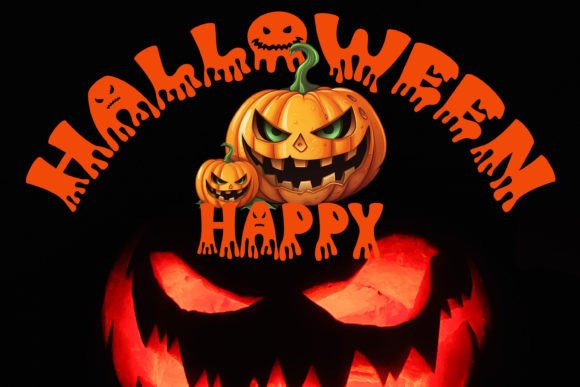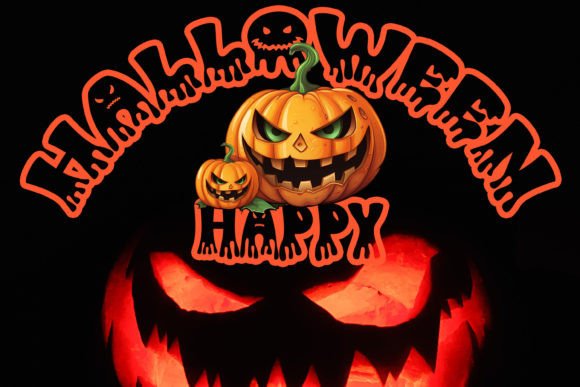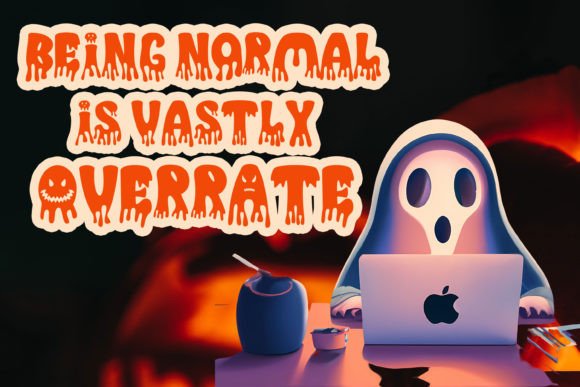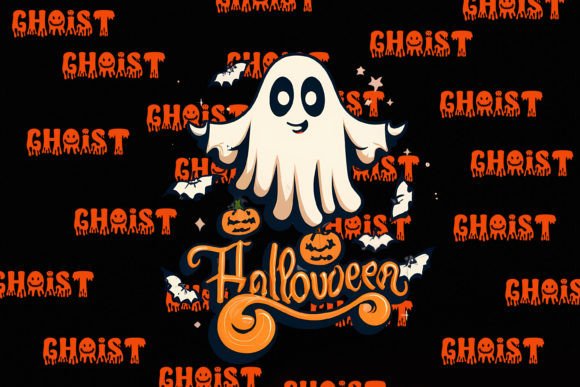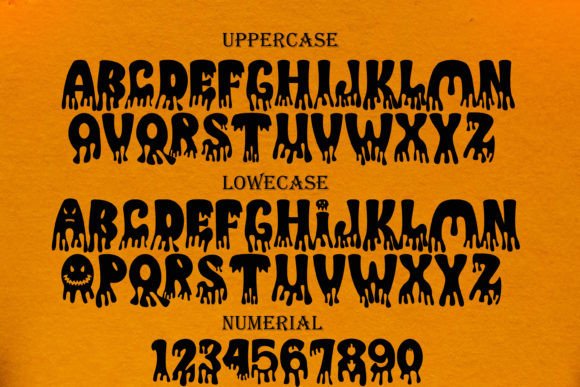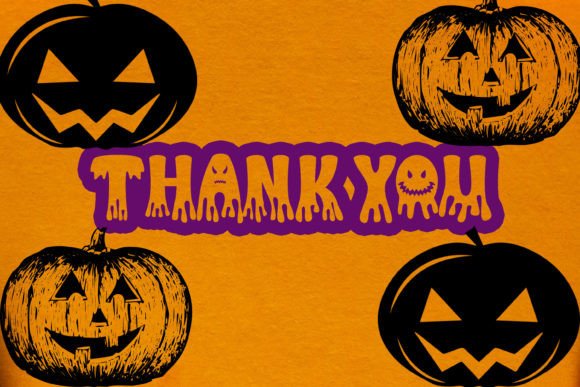
The Perfect Font for a Spooky Twist
As a designer, have you ever been brainstorming ideas for a Halloween-themed project and struggled to find the perfect font to set the mood? You’re not alone. The right font can make all the difference in creating an immersive and engaging experience for your audience.
That’s where the Ghoist Font comes in – a fun and unique display font designed specifically for spooky and Halloween-themed activities. With its eerie and playful vibe, Ghoist Font is the perfect addition to any creative project looking to add a touch of fear and excitement. Whether you’re designing a haunted house flyer, a spooky social media post, or a creepy graphic novel, Ghoist Font is sure to make your design stand out from the crowd.
As a designer, you know how valuable a unique and versatile font can be. Ghoist Font is a valuable addition to any font collection, offering endless possibilities for creative expression and design experimentation.
Ghoist Font Key Features
- Unique Characteristics: Ghoist Font features a unique, distressed design with a mix of rough and smooth textures, giving it a vintage and eclectic feel.
- Font Style: The font is available in a single style, but it has multiple weights, from light to bold, allowing for flexibility in design applications.
- Character Set: The font includes a comprehensive character set, covering Latin, Cyrillic, and Greek alphabets, as well as a range of punctuation and symbol characters.
Ghoist Font Review
As a designer, I’ve had the chance to work with a wide variety of fonts, and I must say that Ghoist is an interesting addition to the mix. Here are my thoughts on what works well and what doesn’t.
- Unique Personality: Ghoist has a distinctive personality that sets it apart from more generic fonts. It’s perfect for projects that need a touch of whimsy.
- Legibility: Despite its unconventional design, Ghoist is surprisingly legible, especially at larger sizes.
- Customization Options: The font comes with a range of weights and styles, making it easy to customize to suit your needs.
- Readability at Small Sizes: While Ghoist is legible at larger sizes, it can become difficult to read at smaller sizes, especially in body text.
- Limited Versatility: While Ghoist is great for projects that need a touch of whimsy, it may not be the best choice for more formal or traditional designs.
Ghoist is a solid choice for designers who want to add a unique touch to their projects. While it has some limitations, its customization options and unique personality make it a great addition to any font collection.
The Ghoist Font is ideal for creating a modern and sophisticated look in your designs.
Use it for headings, titles, and body text to add a touch of elegance.
Pair it with other modern fonts to create a unique and eye-catching design.
Alternatives to “Ghoist Font” for Designers
Montserrat is a sans-serif font that originated from a signage in Buenos Aires. It is perfect for use in digital interfaces, especially in situations where readability is crucial. Montserrat is more geometric and clean compared to Ghoist Font, making it ideal for modern and minimalist designs. It has a higher x-height, which makes it more legible at small font sizes.
Inter is a modern sans-serif font that is designed for digital interfaces. It is highly versatile and can be used in a wide range of applications, from headings to body text. Inter is more rounded and friendly compared to Ghoist Font, making it suitable for use in branding and marketing materials. It also has a wide range of weights and styles, making it easy to customize.